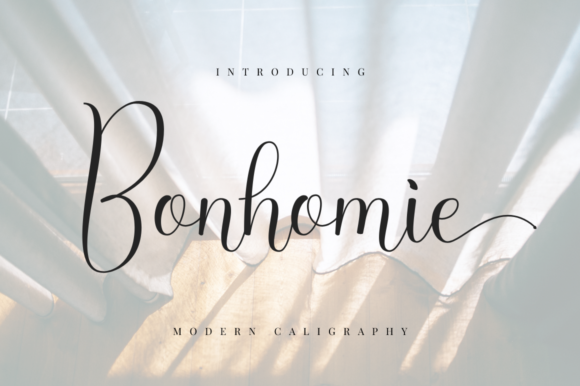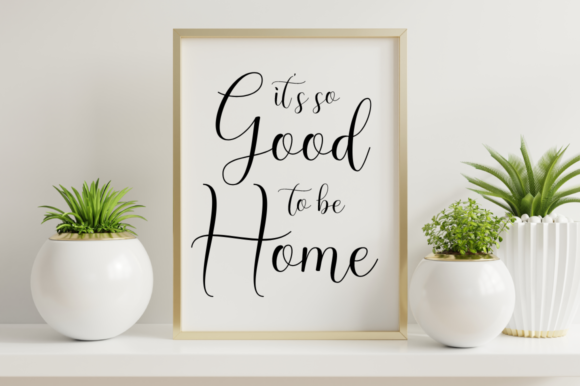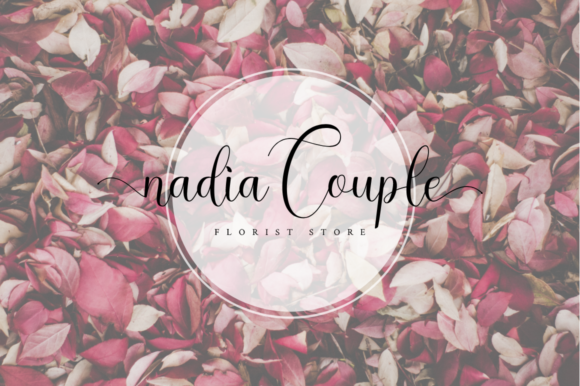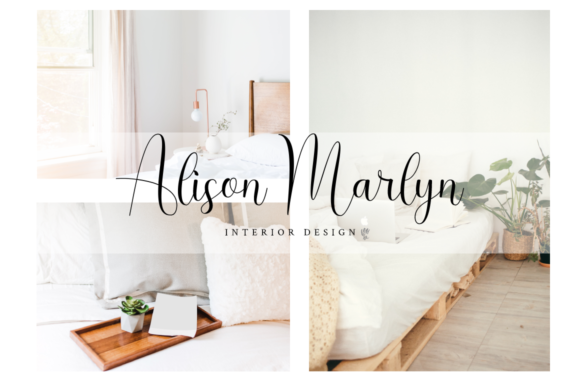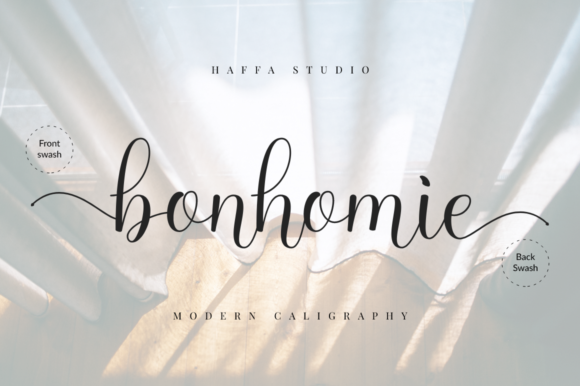
About Bonhomie Font
Bonhomie is an elegant, smooth and round lettered handwritten font. It is PUA encoded which means you can access all of the glyphs and swashes with ease! It looks beautiful on a variety of designs requiring a personalized style, such as wedding invitations, thank you cards, weddings, greeting cards, logos and so on.